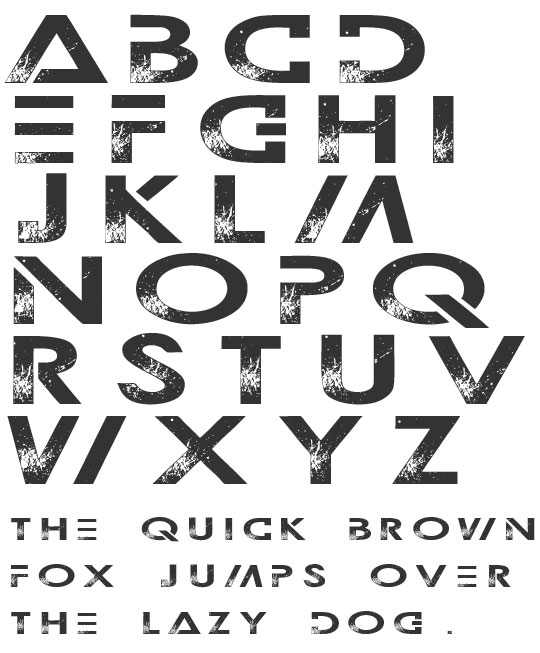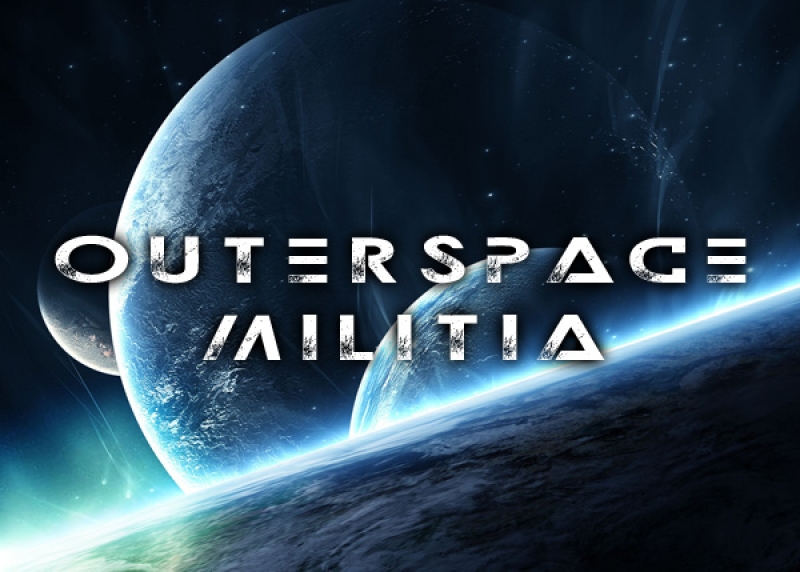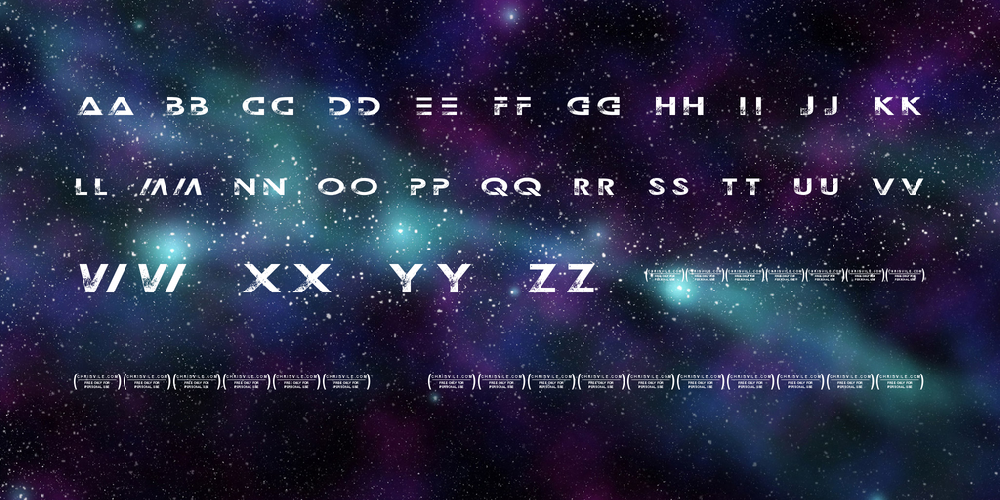
Outerspace Militia Font - Free For Personal
The font family is outer space.
Outer space militia font. Font monger & chris vile fonts has been creating fonts since 2012 with over 200+ published fonts and over 10 million+ downloads. About the font outer space regular. Truetype 30 glyphs 223 characters.
It contains all caps letters, supports latin and greek. Size outerspace militia by font monger. Check out our collection, new designs are added every day.
Download outerspace militia font (2 styles). Outerspace militia font by chris vile. Outerspace militia by font monger.
You can use the outer space regular to create interesting designs, covers, shop and. Outer space font is an experimental serif typeface with distorted characters. The font family is outer space.